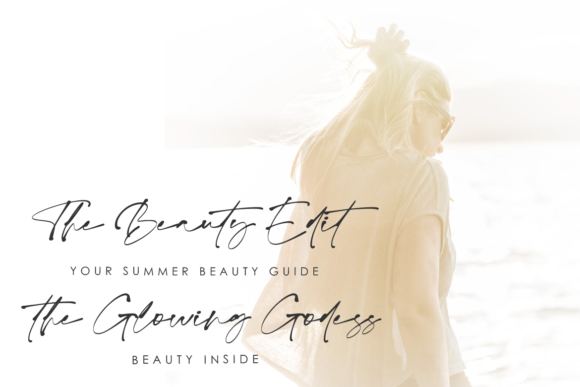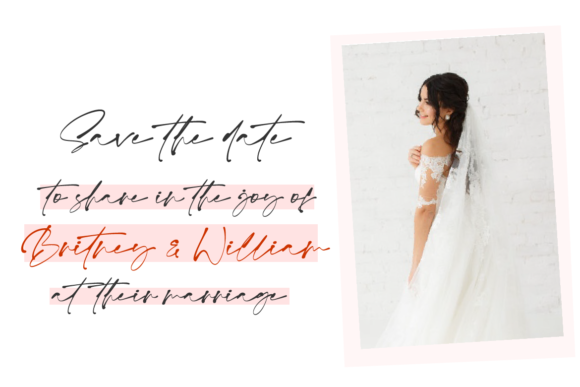
Indulge in the timeless beauty of Monita Signature, a classy and elegant script font that adds a touch of sophistication to any design. With its ravishing style and exquisite details, Monita Signature is the perfect choice for wedding invitations, thank you cards, quotes, greeting cards, logos, business cards, and any project that requires a handwritten touch.
The elegance of Monita Signature is evident in its refined strokes and flowing lines. Each letter is carefully crafted to create a sense of grace and beauty, with a varying baseline that adds a touch of dynamic movement. The smooth curves and delicate details of the font give it a truly luxurious and sophisticated feel.
What sets Monita Signature apart is its gorgeous glyphs and stunning alternates. With a wide range of stylistic options, including swashes and ligatures, this font allows you to customize and personalize your designs to perfection. The alternates offer additional variations of characters, allowing you to create unique and eye-catching compositions.
Monita Signature exudes a sense of elegance and charm, making it ideal for high-end and refined designs. Whether you’re designing wedding stationery, branding materials, or promotional materials for your business, this font adds a touch of sophistication that captivates the viewer’s attention.
The versatility of Monita Signature ensures its compatibility with a wide range of design projects. Its timeless style can be adapted to both traditional and modern themes, making it suitable for various occasions and applications. From formal events to casual projects, Monita Signature effortlessly elevates your designs with its class and elegance.
With Monita Signature, you have the power to create stunning and memorable designs. Its handwritten touch adds a personal and intimate feel to your projects, leaving a lasting impression on your audience. Whether you’re aiming for a romantic and dreamy atmosphere or a professional and refined look, this font delivers with its exquisite style and attention to detail.
Embrace the beauty and sophistication of Monita Signature and let it be the centerpiece of your design projects. Its classy and elegant script will elevate your creations to new heights, leaving a lasting impact on anyone who lays eyes on them. With Monita Signature, your designs will exude luxury, style, and a touch of handwritten elegance.